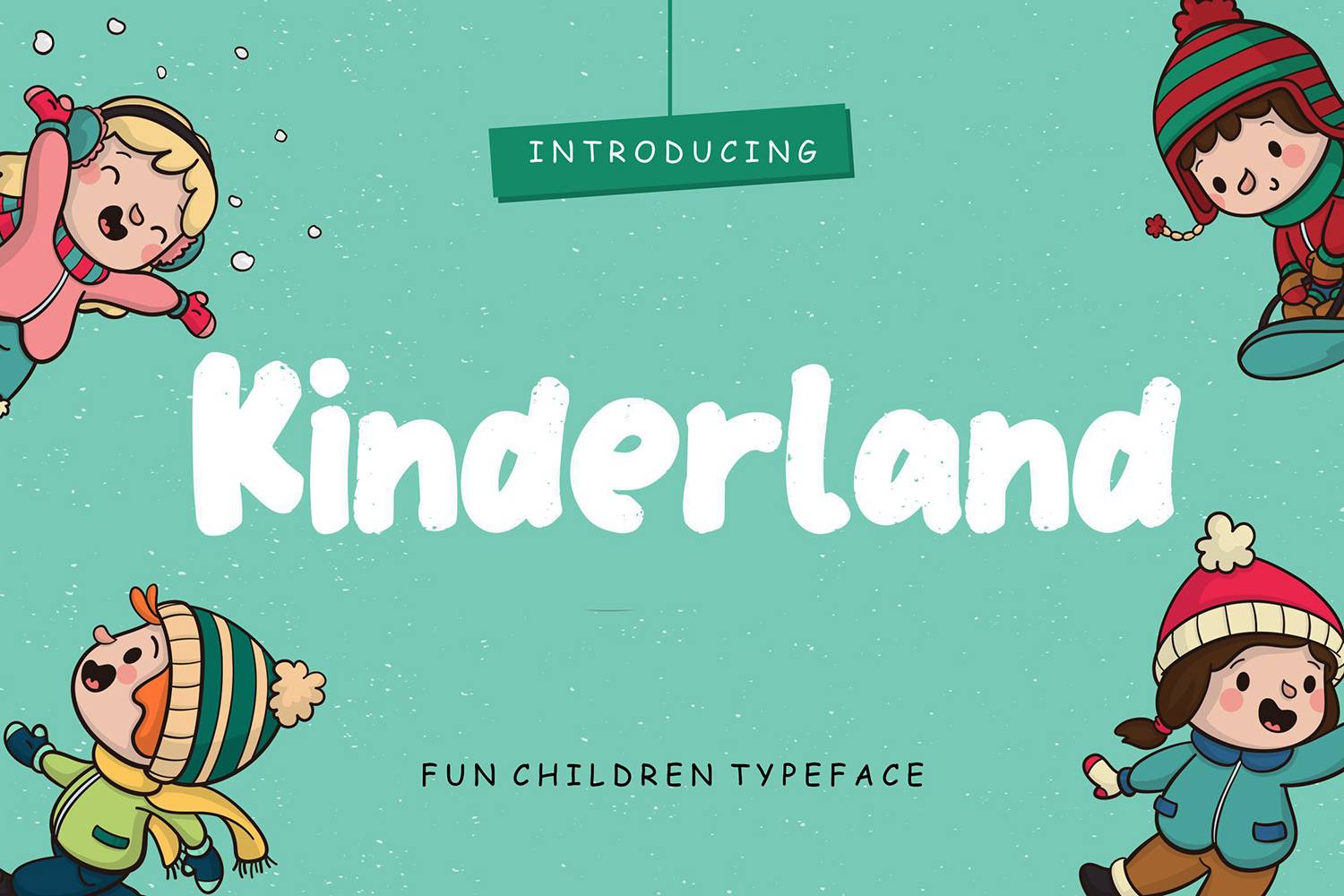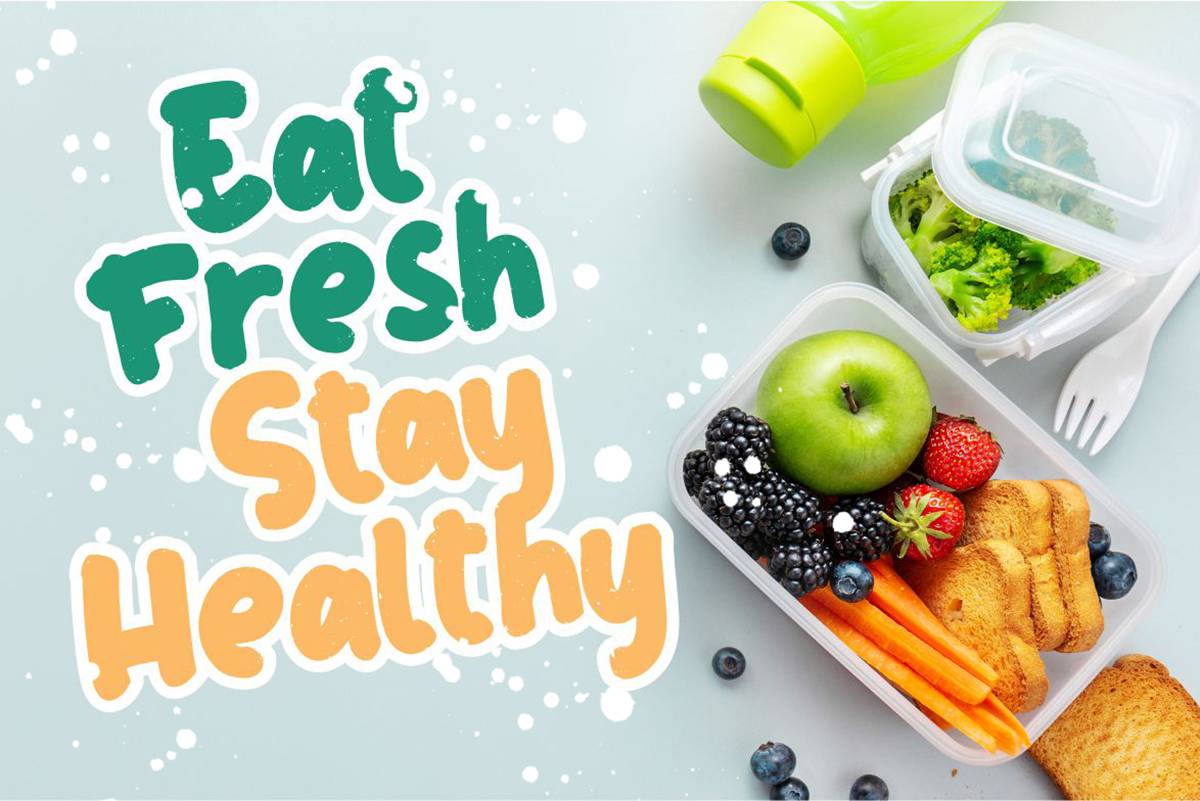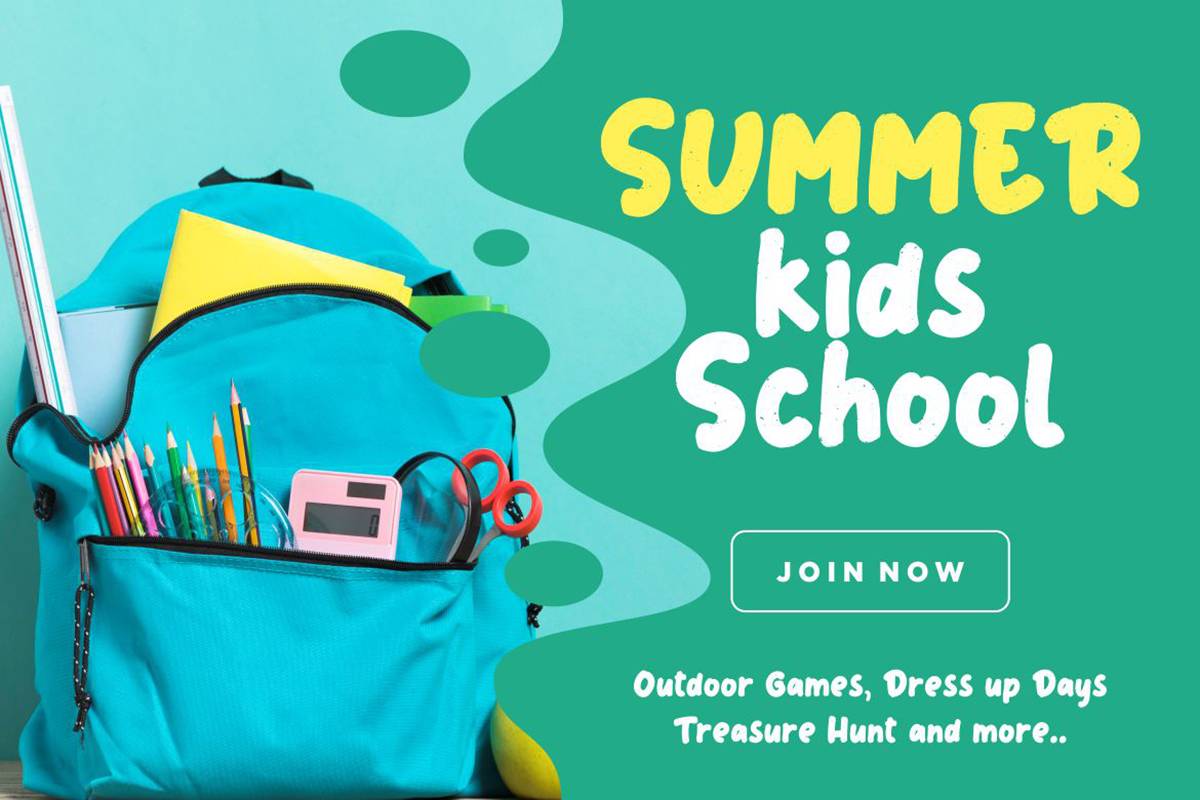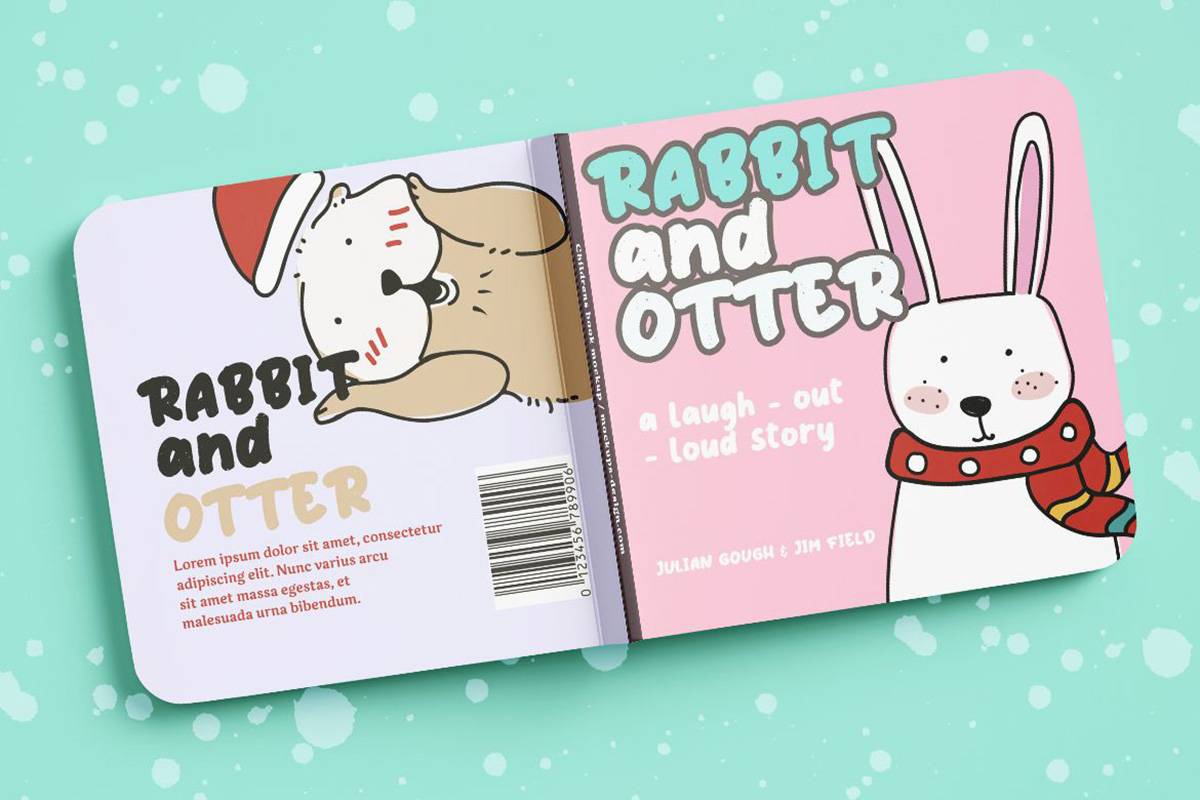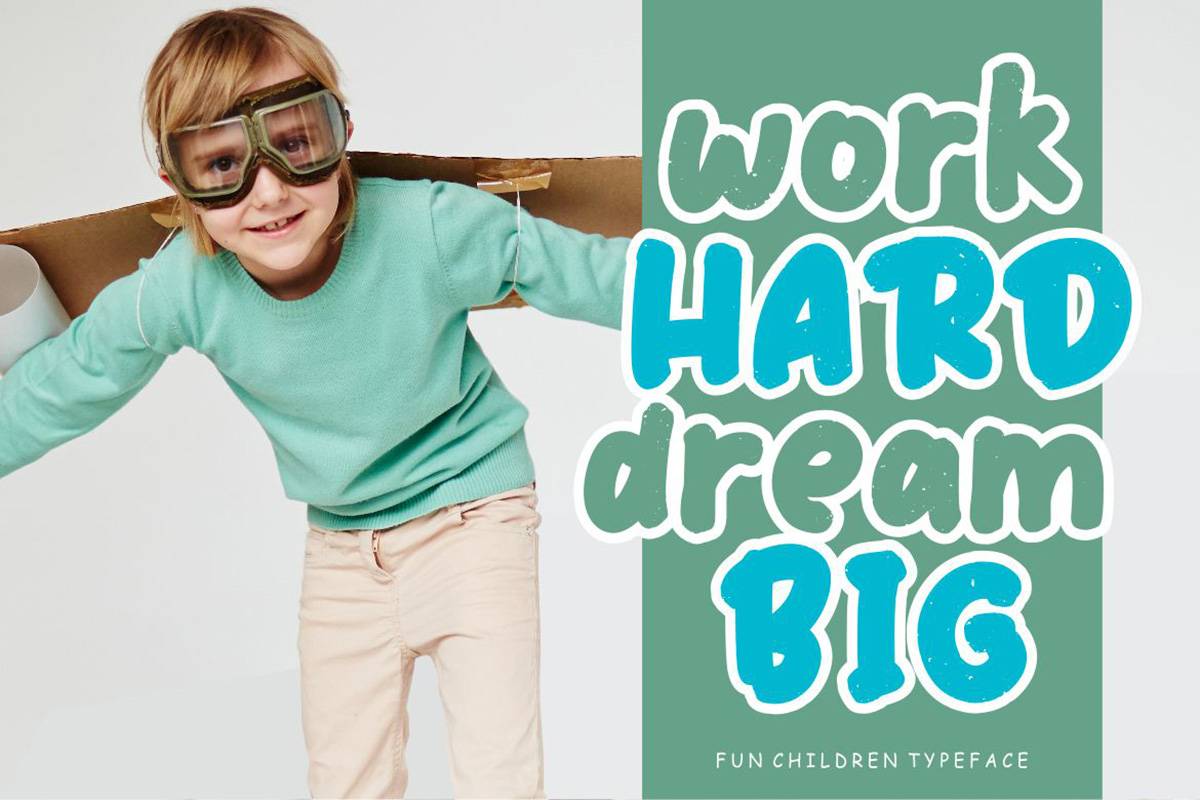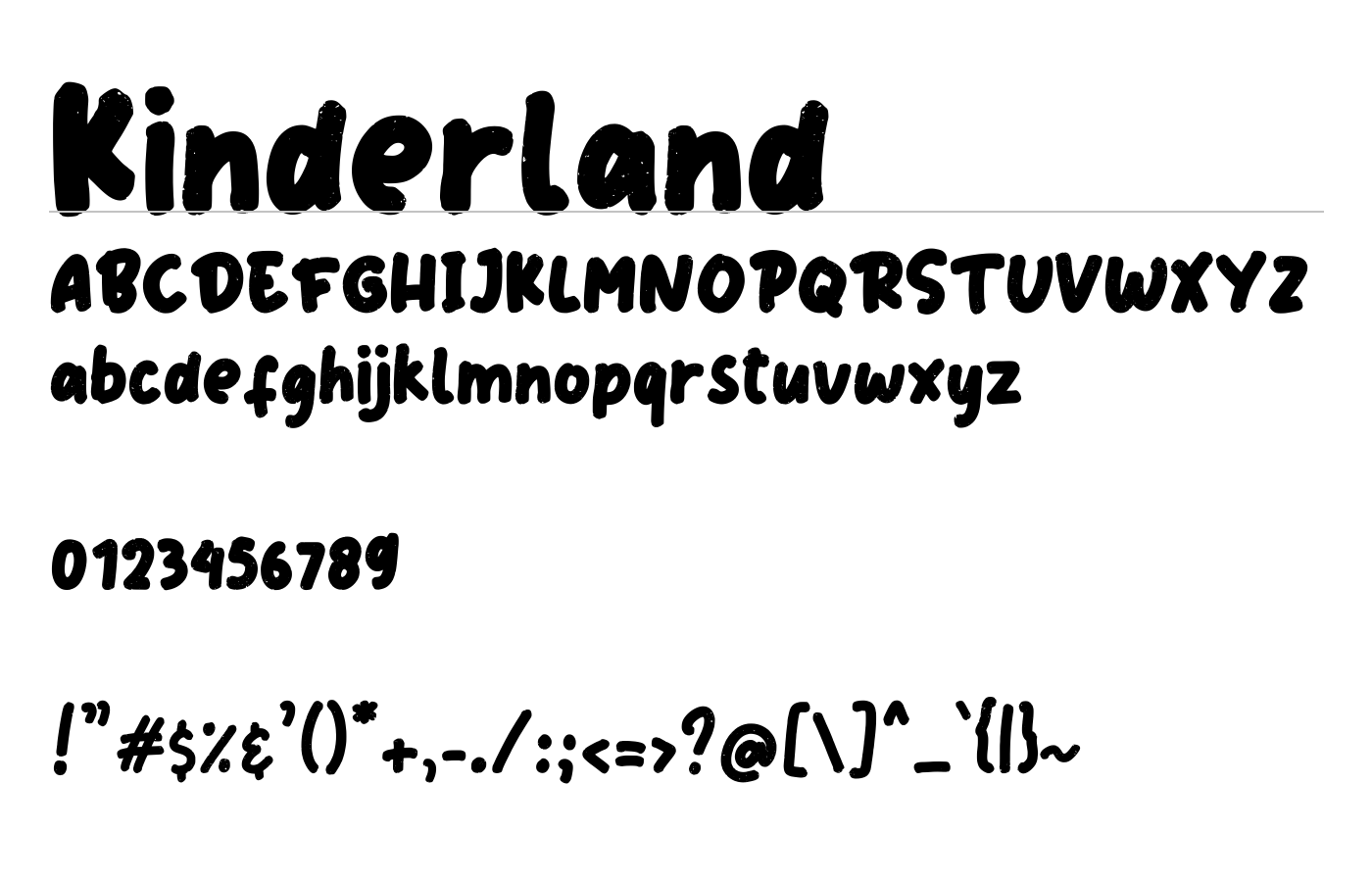
Kinderland is a playful, bold handwritten font with a chunky, rounded style that evokes a friendly and casual feel. Its uneven strokes and slightly irregular shapes give it a charming, childlike personality, making it ideal for fun, informal designs such as children's products, educational materials, and playful branding. This font works best in headlines and logos where a warm, approachable tone is desired.
Kinderland Font
About Kinderland Font